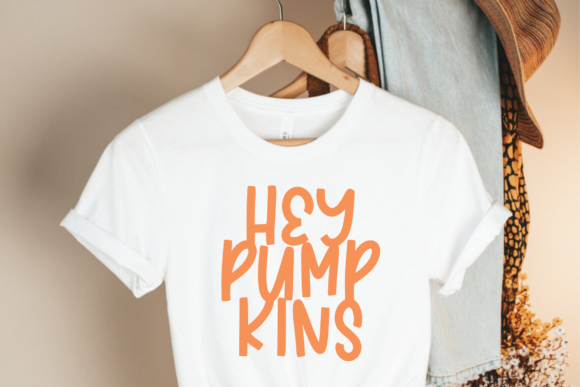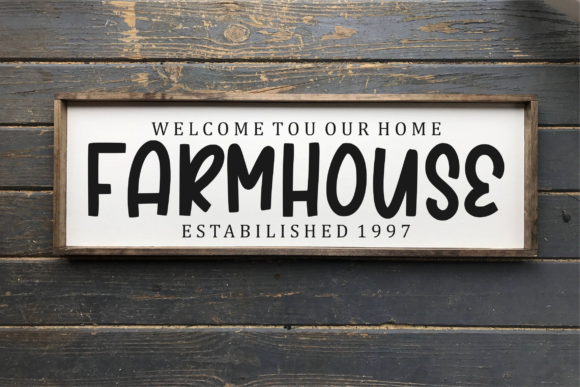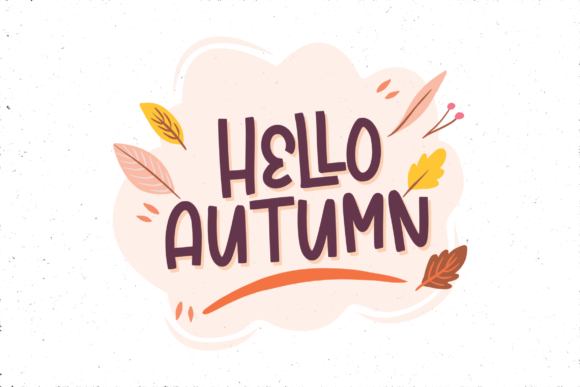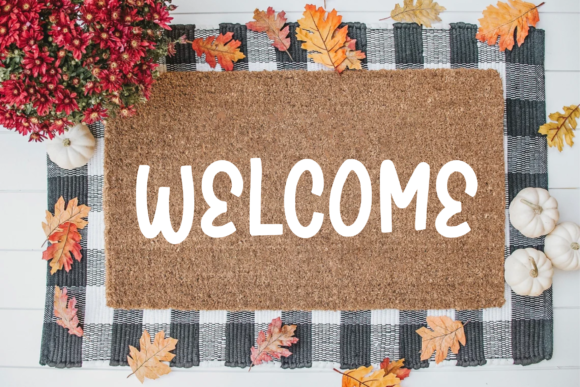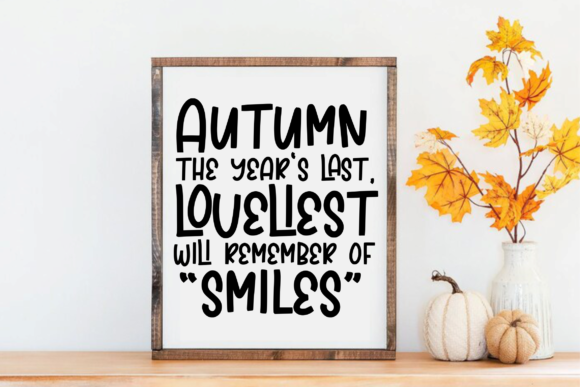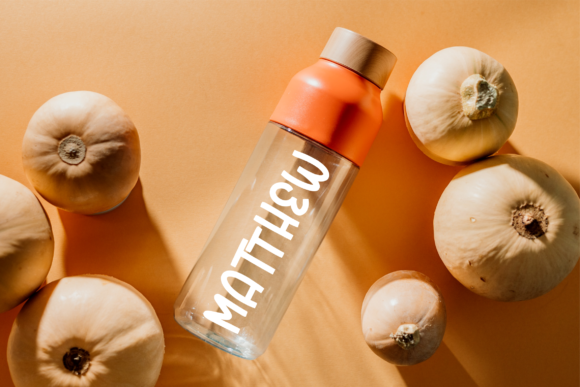
Better Autumn Font: Add a Joyful Touch to Your Designs
Are you looking for a font that can add a playful and whimsical touch to your designs? Look no further than the Better Autumn font! This cute and quirky display font is perfect for designers and crafters who want to make their creative projects stand out. In this article, we’ll take a closer look at the Better Autumn font, its features, and how you can use it to elevate your designs.
What is Better Autumn Font?
Better Autumn is a display font that is designed to add a joyful touch to your designs. Its cute and quirky style makes it perfect for projects that require a playful and whimsical feel. Whether you’re working on a graphic design project, crafting a handmade card, or creating a digital art piece, this font is sure to make your project stand out.
Key Features of Better Autumn Font
So, what makes the Better Autumn font so special? Here are some of its key features:
- Cute and Quirky Style: The Better Autumn font has a unique and playful style that is sure to add a joyful touch to your designs.
- PUA Encoded: This font is PUA (Private Use Area) encoded, which means you can access all of the amazing glyphs and ligatures with ease.
- Display Font: Better Autumn is a display font, making it perfect for headlines, titles, and other design elements that need to make a statement.
How to Use Better Autumn Font in Your Designs
Now that we’ve covered the features of the Better Autumn font, let’s talk about how you can use it in your designs. Here are a few ideas to get you started:
- Graphic Design Projects: Use Better Autumn as a headline font for brochures, posters, and other graphic design projects.
- Handmade Cards and Crafts: Add a personal touch to your handmade cards and crafts with this beautiful display font.
- Digital Art: Use Better Autumn to add text to your digital art pieces, such as illustrations and paintings.
- Social Media Graphics: Make your social media graphics stand out with this fun and playful font.
Tips for Getting the Most Out of Better Autumn Font
Here are a few tips for getting the most out of the Better Autumn font:
- Experiment with Different Sizes: Don’t be afraid to experiment with different font sizes to find the perfect fit for your design.
- Pair with Other Fonts: Try pairing Better Autumn with other fonts to create a unique and interesting design.
- Use the Glyphs and Ligatures: Take advantage of the PUA encoding and use the glyphs and ligatures to add extra interest to your design.
In conclusion, the Better Autumn font is a beautiful and playful display font that is perfect for designers and crafters who want to add a joyful touch to their designs. With its cute and quirky style, PUA encoding, and display font features, it’s sure to make your projects stand out. Whether you’re working on a graphic design project, crafting a handmade card, or creating a digital art piece, this font is sure to be a great addition to your design toolkit.